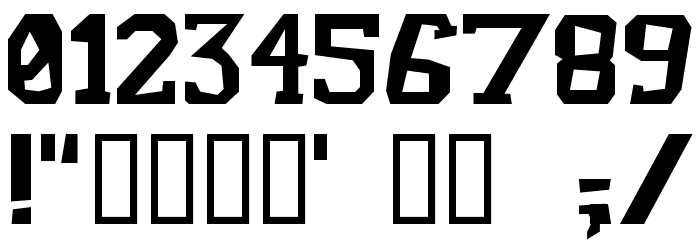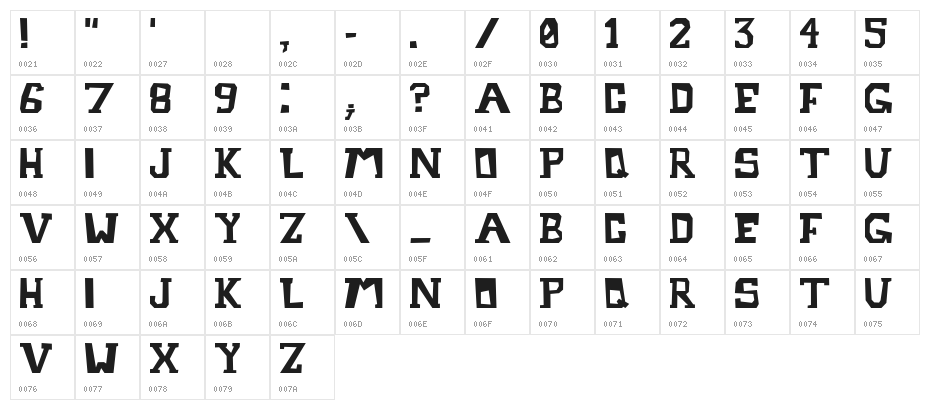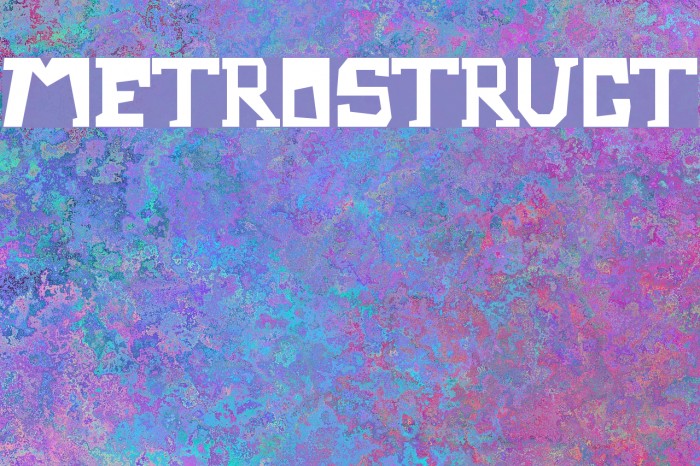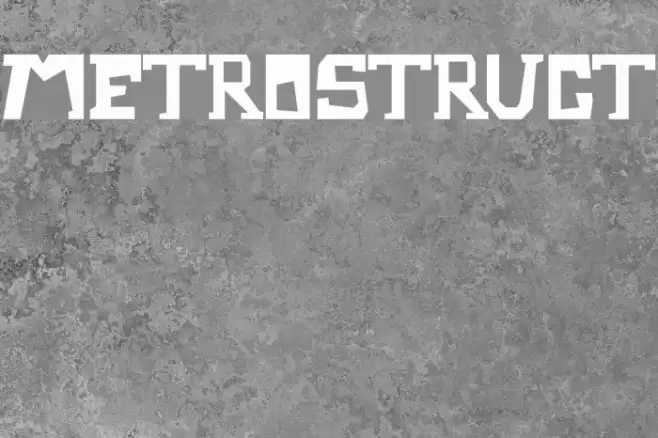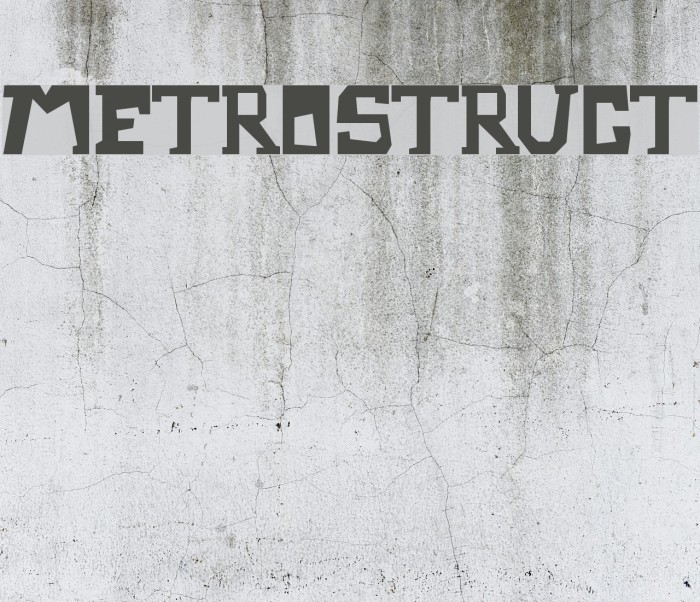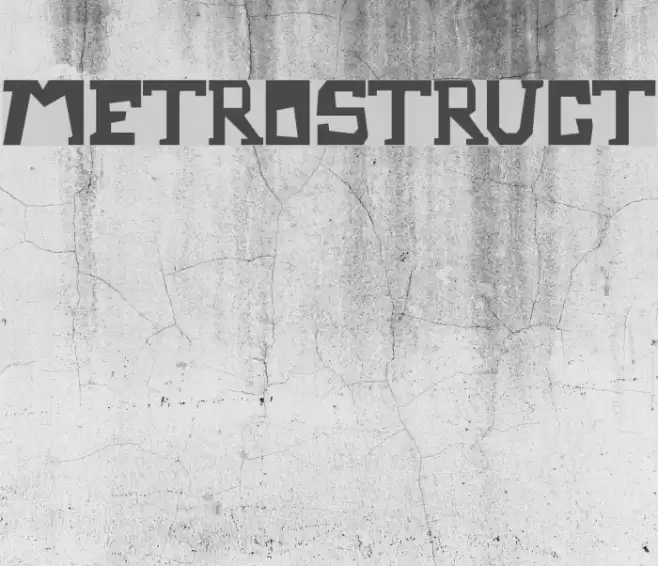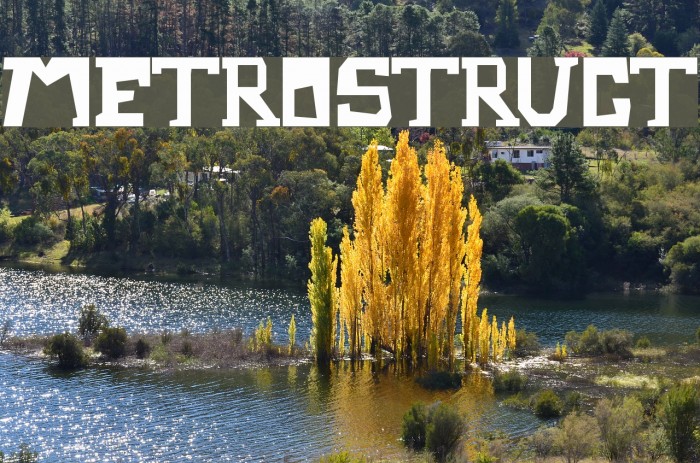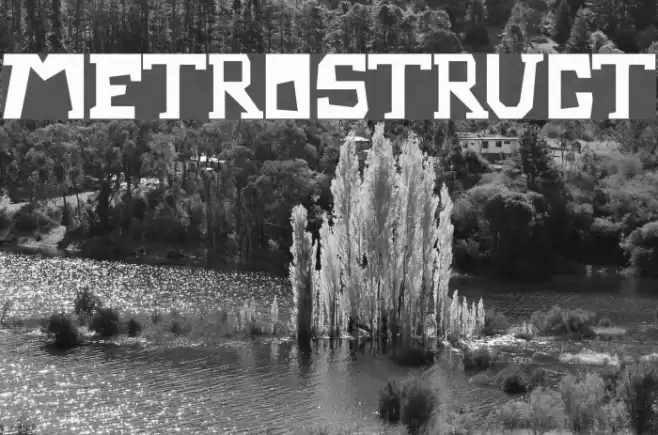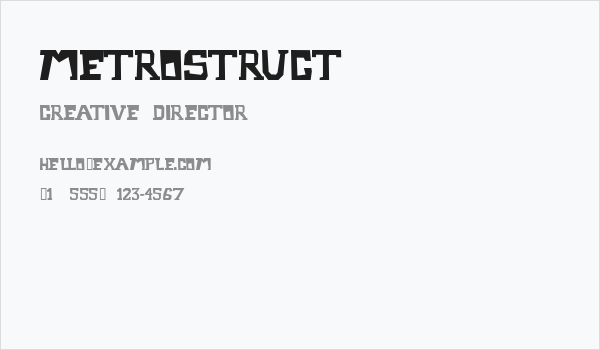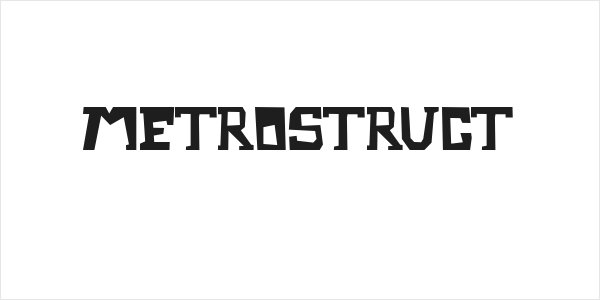
Metrostruct Font
Metrostruct Description
This font exhibits a bold and angular design, characterized by its geometric and blocky letterforms. Each character is crafted with sharp edges and a distinct, industrial feel, making it stand out with a strong presence. The uppercase letters maintain a consistent height and width, while the numerals and special characters follow the same robust style. The font's unique structure is reminiscent of urban architecture, giving it a modern and edgy appearance. Its boldness and distinctiveness make it suitable for projects that require a strong visual impact.
Proposed ProjectsIdeal for posters, branding, logos, and signage that require a strong, modern aesthetic.